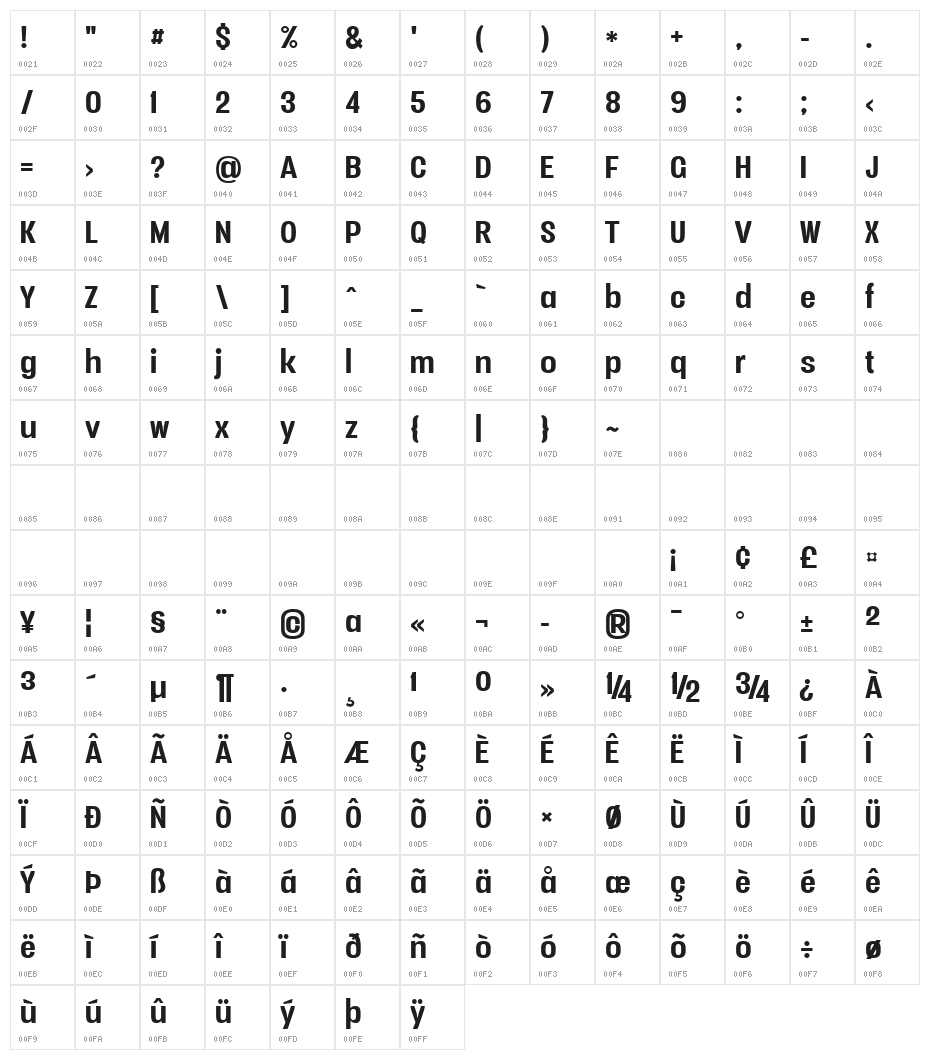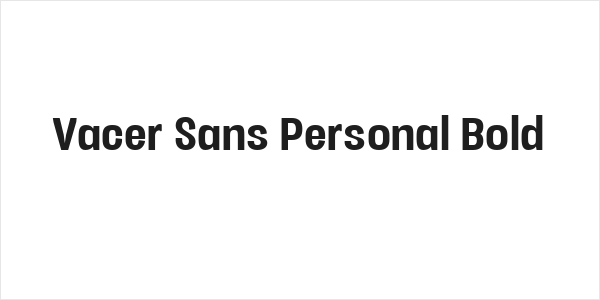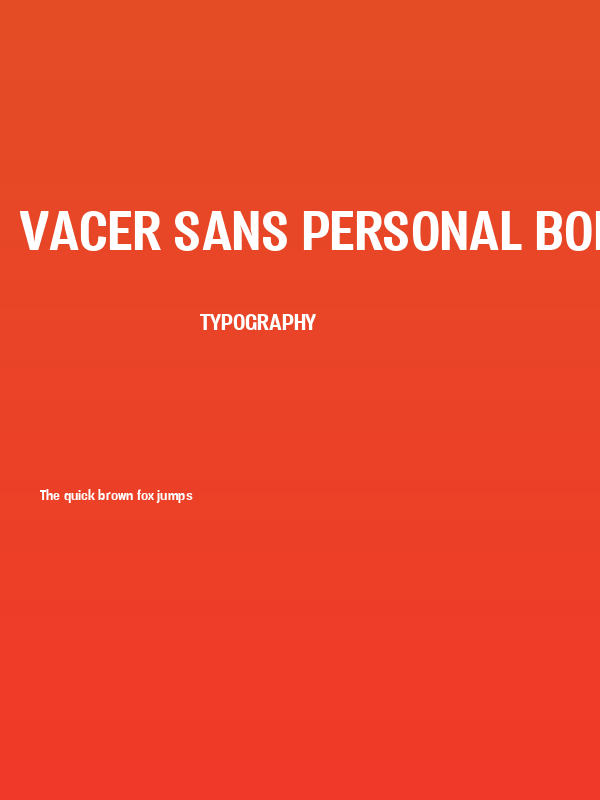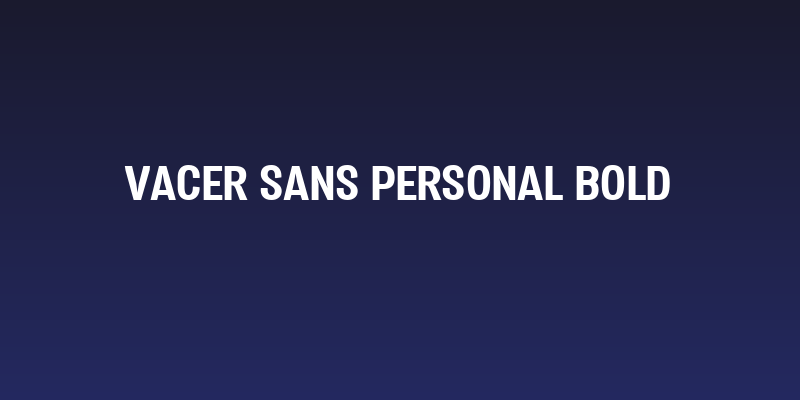
Vacer Sans Personal Bold Font
Vacer Sans Personal Bold Description
This font features a bold and modern sans-serif design, characterized by clean lines and a strong presence. The uppercase and lowercase letters are well-proportioned, offering a sense of balance and readability. The numerals are consistent in style, matching the boldness of the alphabetic characters. Special characters are clearly defined, maintaining the overall aesthetic. The font's bold weight and normal width make it suitable for impactful headlines and titles, while its clarity ensures legibility in various applications.
Proposed ProjectsIdeal for branding, advertising, headlines, posters, and digital media where a bold statement is needed.